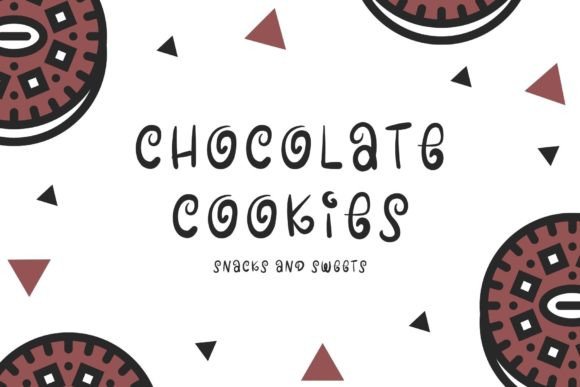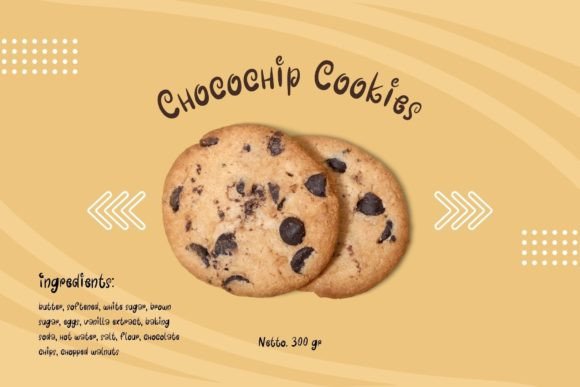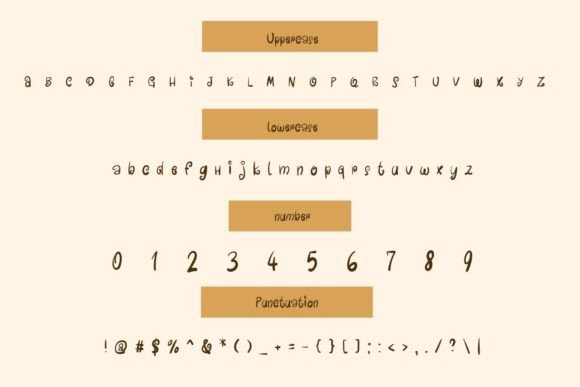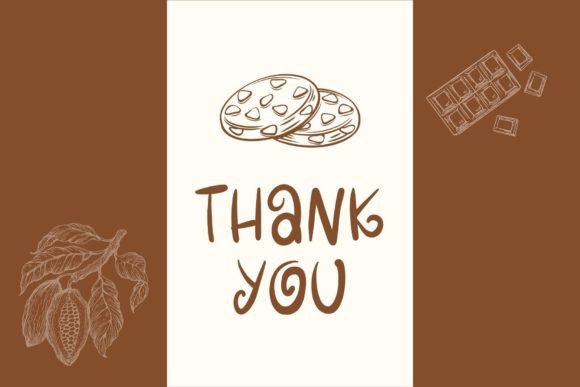
Introduction to Magic Brown Font
Have you ever been in the middle of a creative project, pouring your heart and soul into it, only to feel like something’s missing? A spark, a flair, a unique touch that elevates your design from good to great? That’s where the Magic Brown Font comes in – a high-quality, free download that’s about to become your new design BFF.
As a designer, you’re always on the lookout for that special something to make your projects stand out. And let’s face it, a beautiful, handwritten font like Magic Brown can be a game-changer. With its authentic, playful vibe, it’s the perfect choice for anything from blog posts to logos, branding, and even invitations. Add it to your design arsenal and get ready to take your creative projects to the next level!
Key Features of Magic Brown Font
- High-quality design resource with a unique, warm aesthetic suitable for creative projects.
- Features a transparent background, making it ideal for use on dark or textured backgrounds.
- Includes a range of font styles and weights, offering versatility for various design applications.
- Designed with a high resolution (300 DPI) for use in print materials, such as posters, flyers, and business cards.
- Comes in a range of sizes, from 12pt to 72pt, allowing for precise control over font size in design projects.
Honest Review: Magic Brown Font
I recently stumbled upon the Magic Brown Font while searching for a high-quality design resource for my creative project. I was excited to give it a try and see if it would meet my expectations.
Here are some of the things that I like about the Magic Brown Font:
- ✨ Beautiful and elegant design – the font is perfect for creating a sophisticated and professional look.
- ✨ High quality – the font is clear and easy to read, even at small sizes.
- ✨ Transparent background – the font has a transparent background, which makes it easy to use with different backgrounds and images.
- ⚠️ Limited character set – the font only includes a limited number of characters, which may be a problem for some users.
- ⚠️ Not suitable for bold text – the font may not be the best choice for bold or italic text, as it can become distorted.
Overall, I was impressed with the Magic Brown Font and would definitely recommend it to designers who are looking for a high-quality, free design resource for their creative project.
Experiment with different font sizes and styles to create a unique look. You can also pair the Magic Brown Font with other fonts to create a visually appealing combination.
Common Use Cases for Magic Brown Font
The Magic Brown Font is perfect for use in branding, marketing materials, and creative projects. It’s also great for use in presentations, documents, and social media graphics.